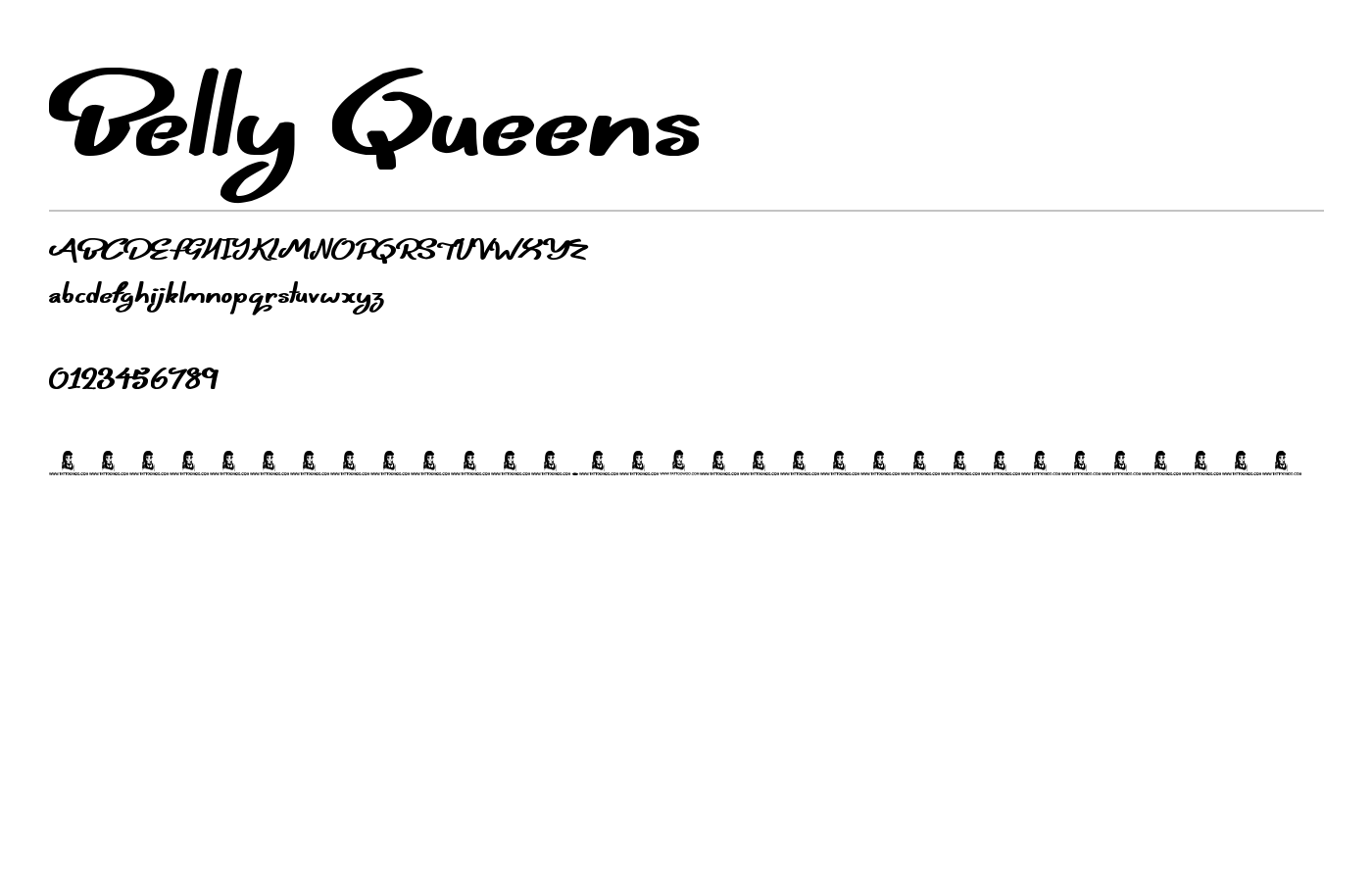
Belly Queens is a bold, playful script font with a lively and expressive character, featuring smooth, rounded strokes and a casual handwritten feel. Its flowing letterforms and moderate contrast make it ideal for creative branding, posters, and fashion-related designs that want to convey energy and personality. This font works best in display uses where its unique style can shine without compromising readability.
Belly Queens Font
About Belly Queens Font
| Font family | Belly Queens Font |
| Designer | Jonathan Stephen Harris |